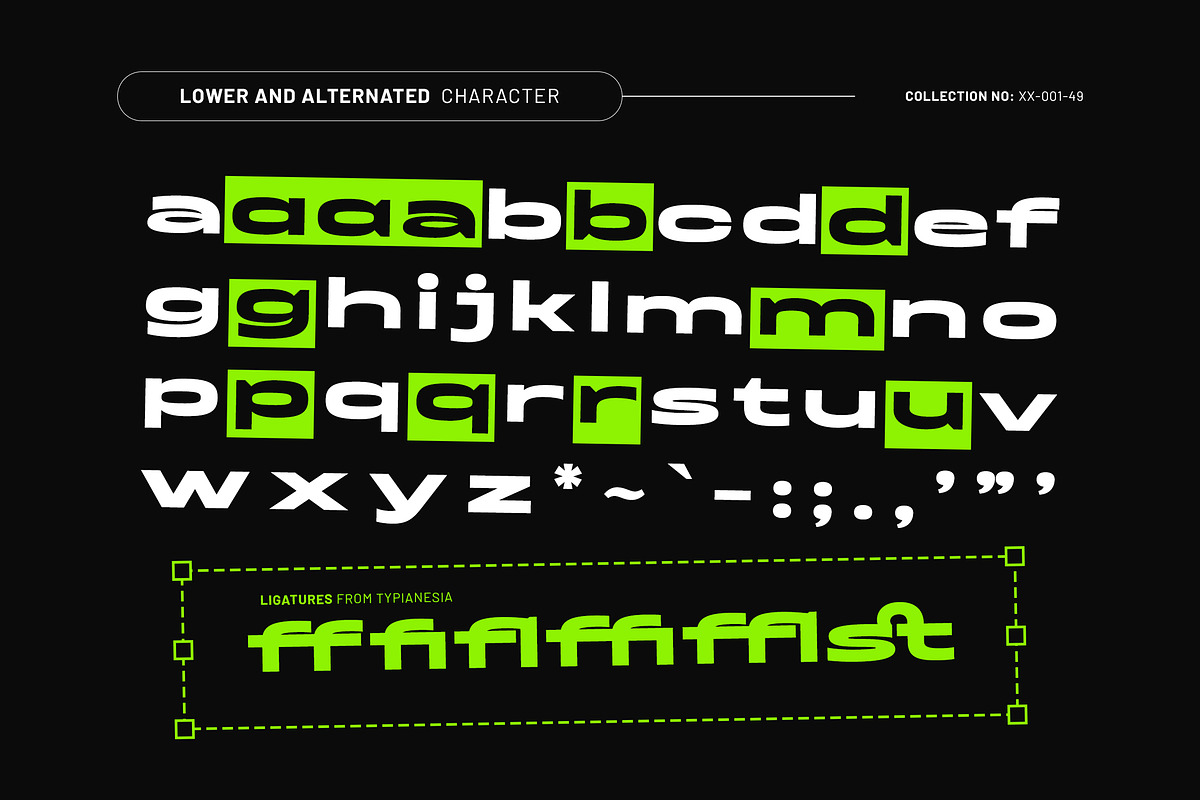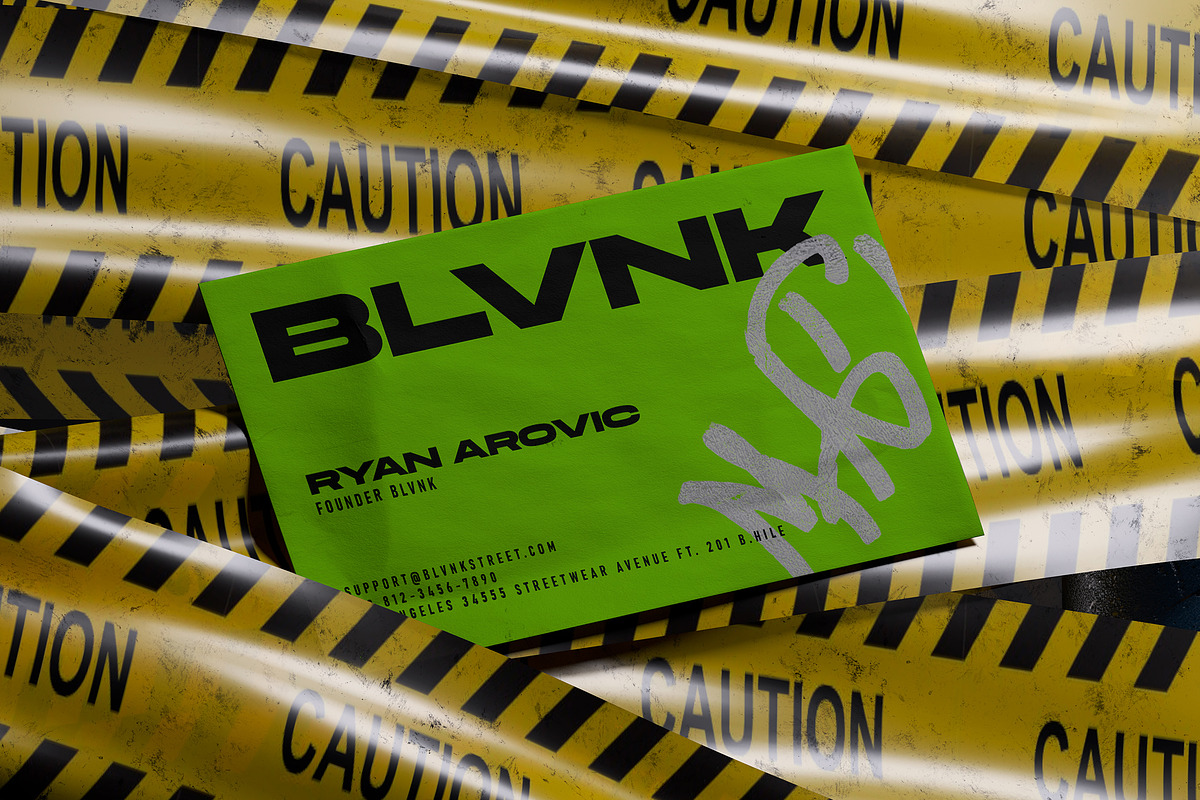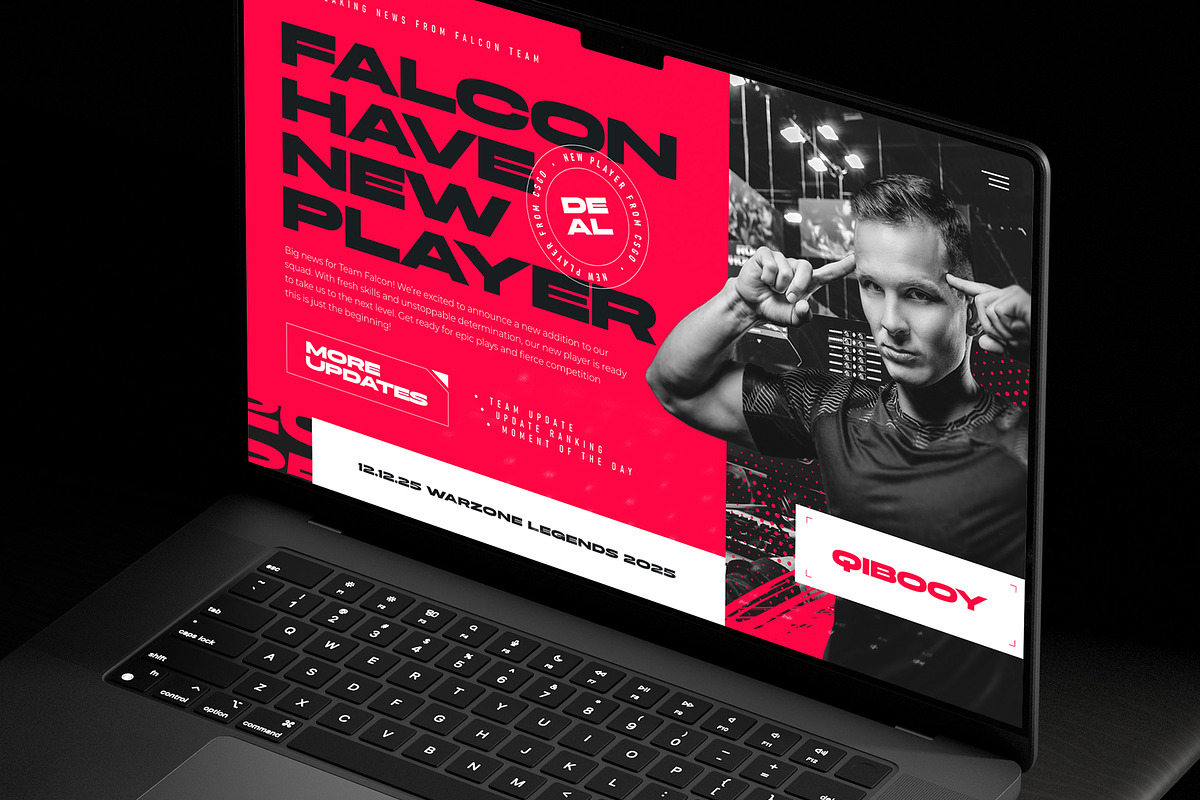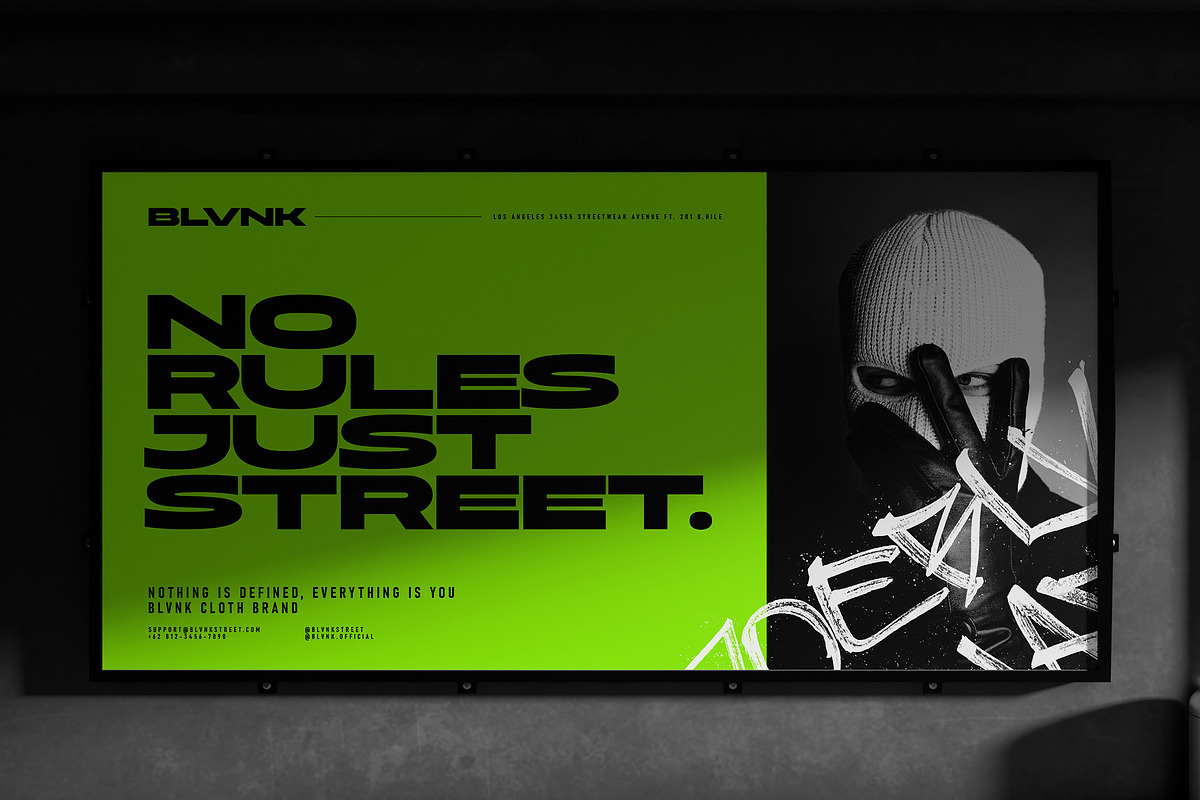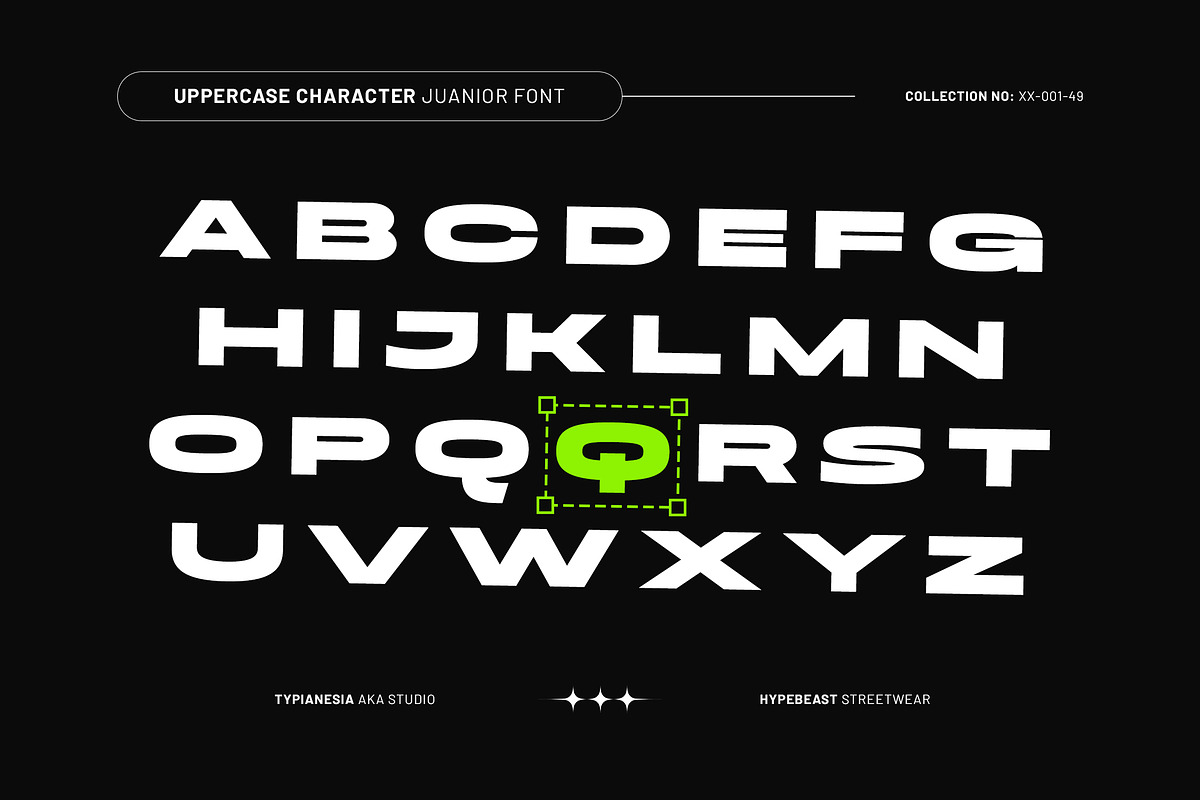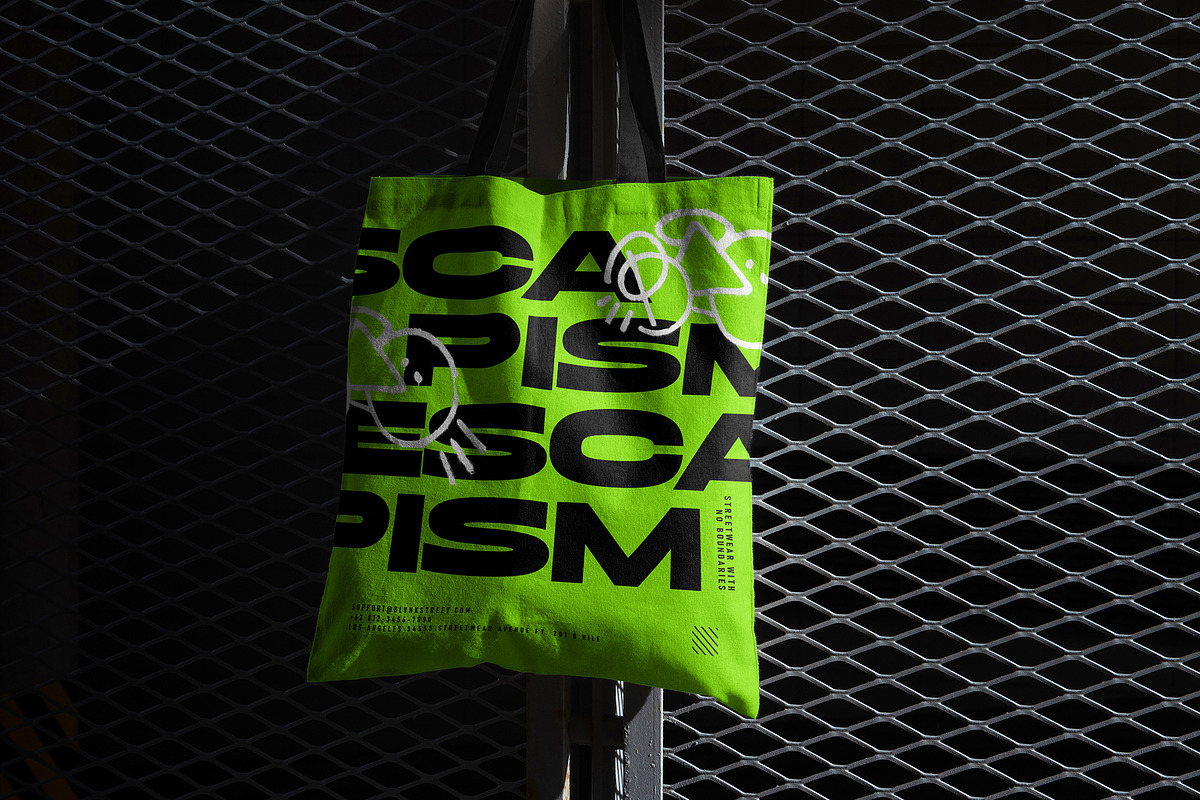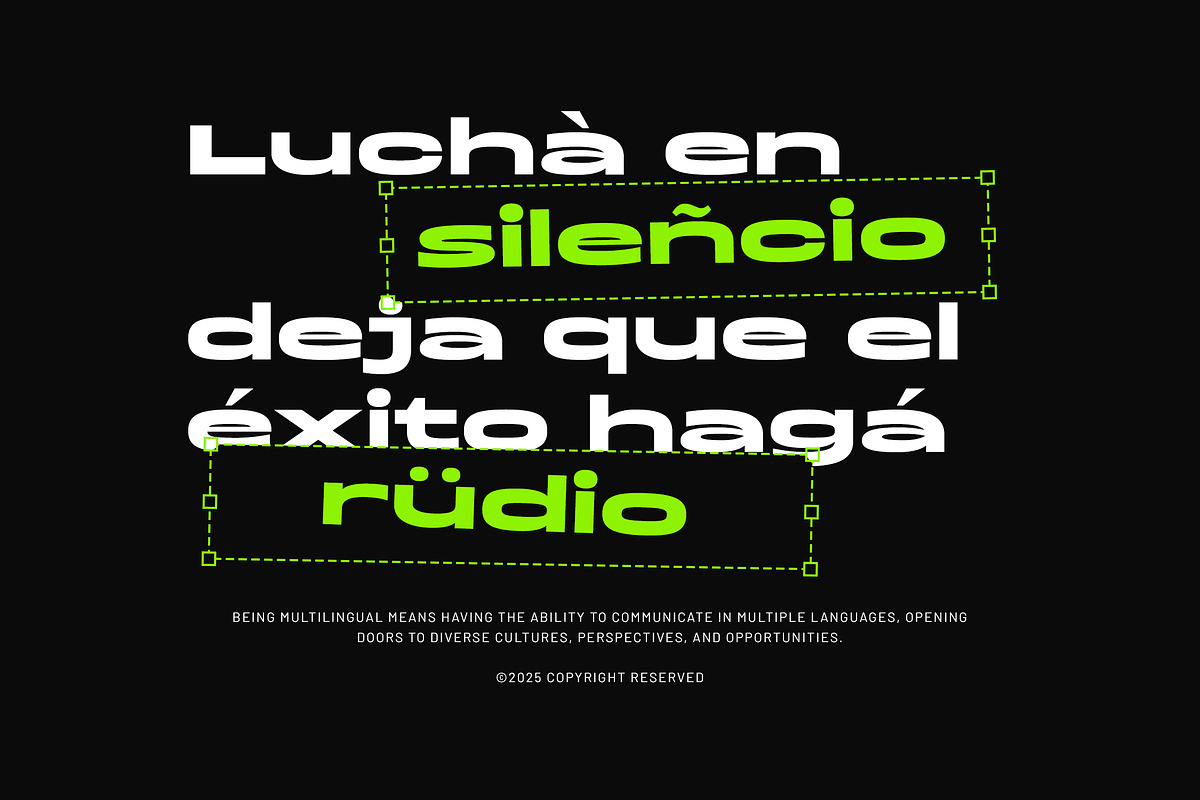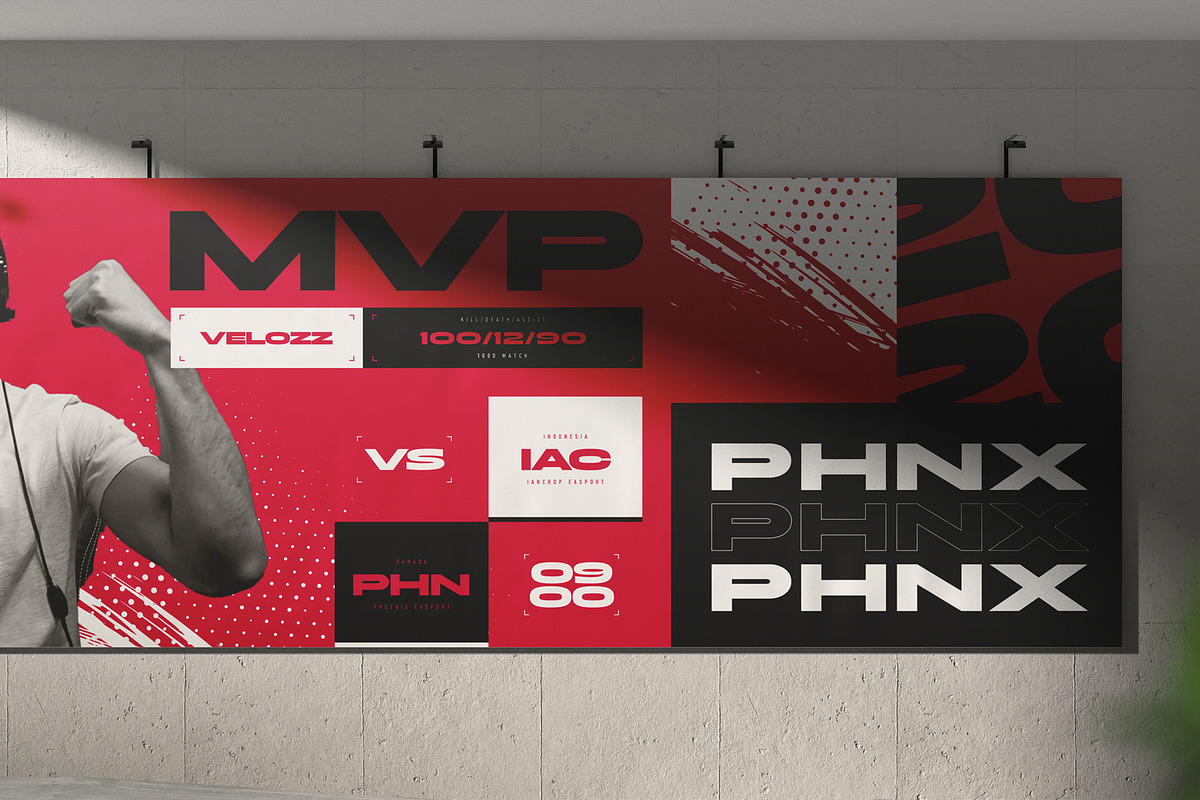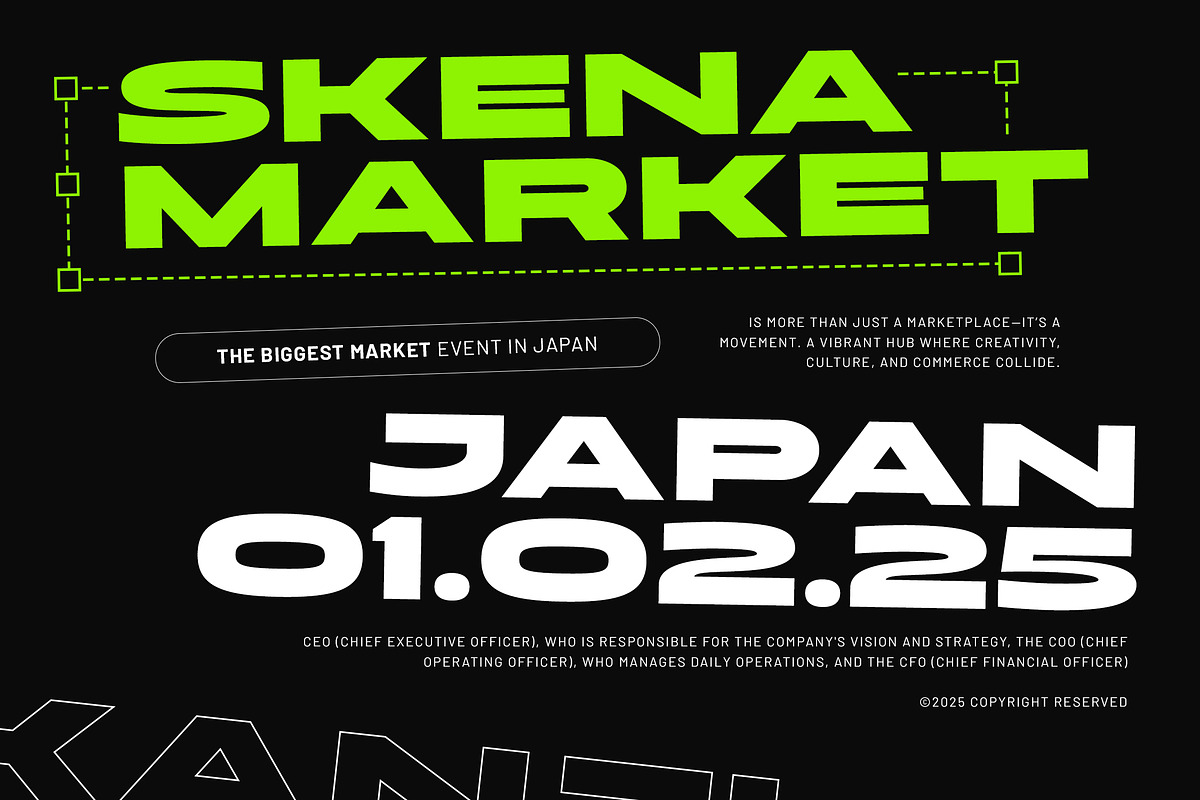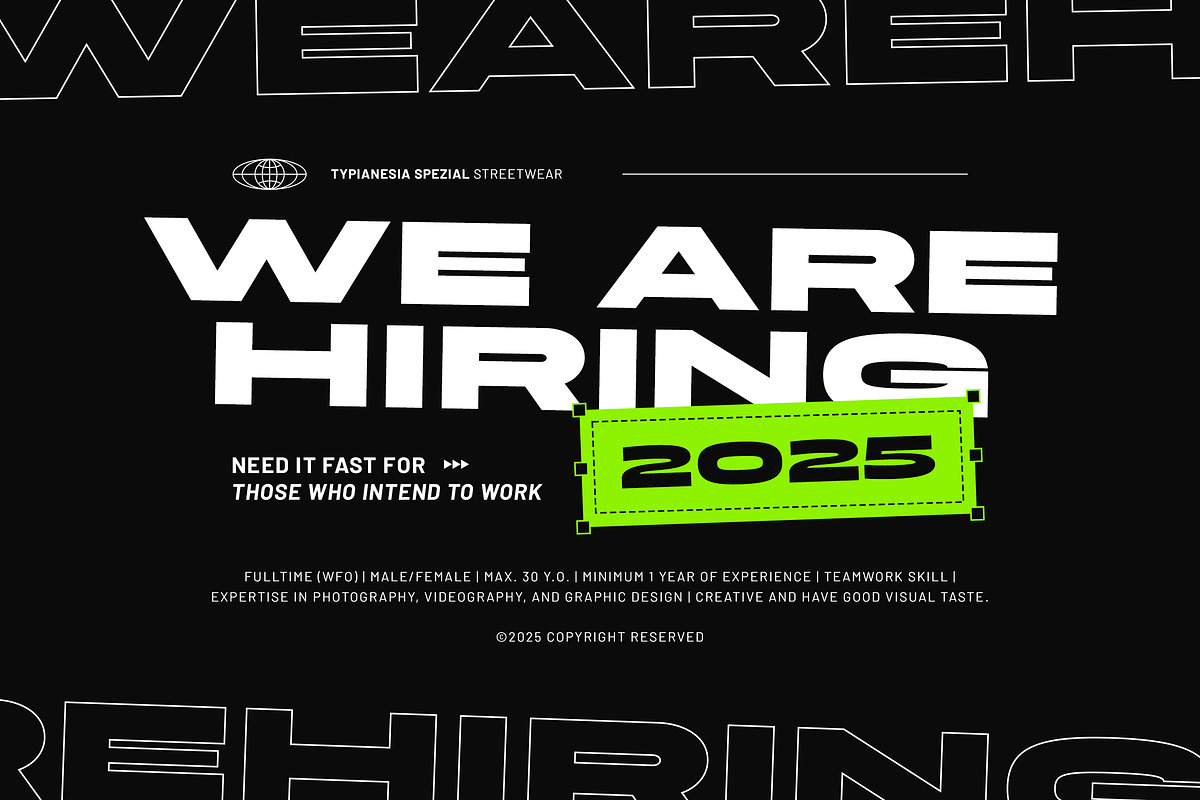
Juanior - Expanded Sans Serif
Juanior - Expanded Sans Serif Display - Bold Sport Game Modern Digital Futuristic Typeface
Juanior is an Expanded Sans Serif Display font that commands attention with its strong and wide letterforms, making it perfect for impactful typography that demands attention, such as branding, posters, technology-based projects, sci-fi themes, game design, sport, headlines, packaging, advertising, website headers, futuristic editorial layouts, and any project that requires a touch of stands out with a strong, futuristic appeal. Comes with uppercase and lowercase letters, punctuation, numerals, ligatures, and alternates, providing creative flexibility for designers. It also supports multiple languages, making it a globally accessible font suitable for various projects. Designed for graphic designers, branding experts, game developers, and creative professionals, Juanior offers high readability, strong visual presence, and a bold futuristic presence, making it a go-to choice for dynamic and innovative designs.